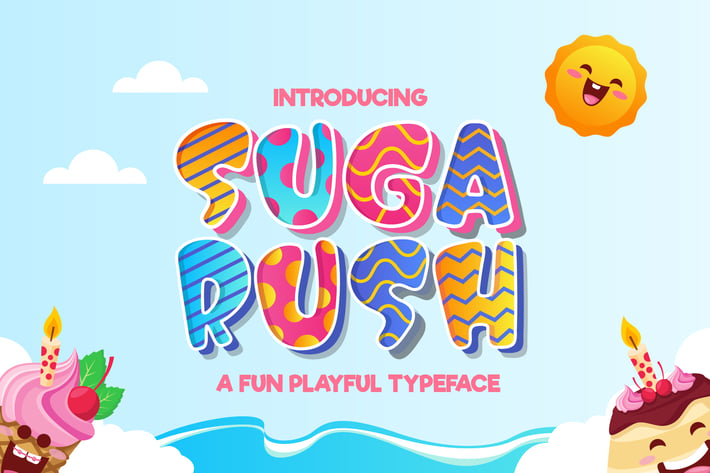
Suga Rush - Fun Playful Typeface
Are you looking for a bold and fun font for children? We can help! Try to download our Suga Rush font. The font is suitable to use for casual purpose especially children related occasion :) Oh yeah we forgot to mention that we give you 79 eye candy vector objects for free too in Adobe Illustrator format!
Basic Latin A-Z